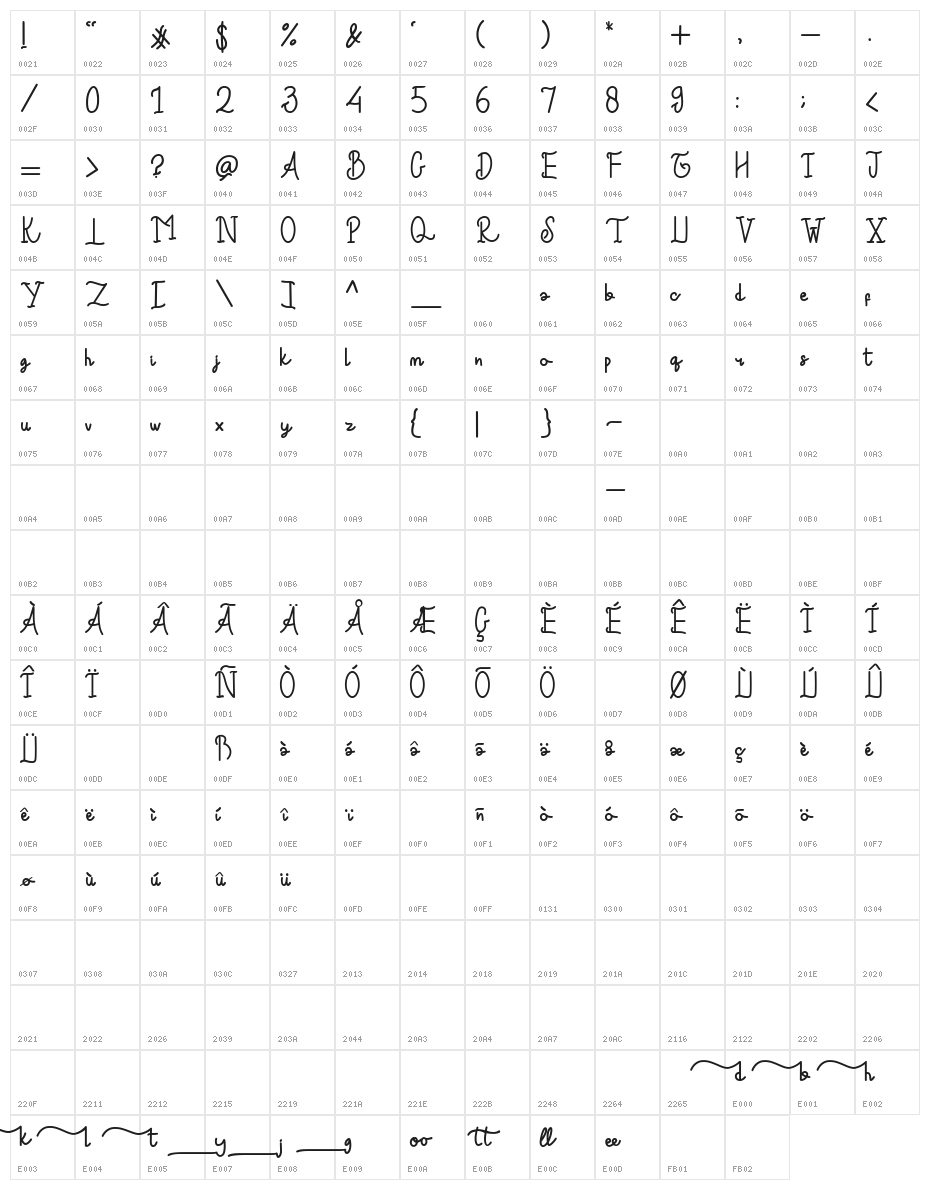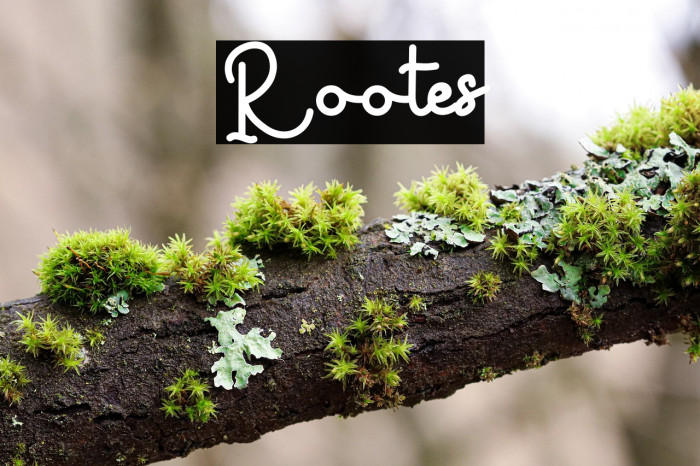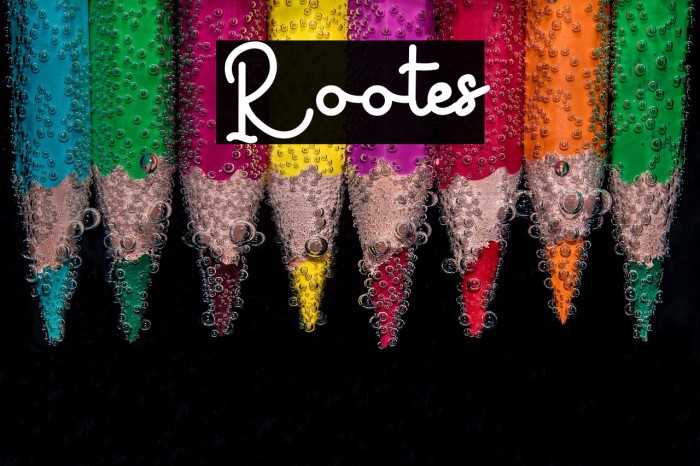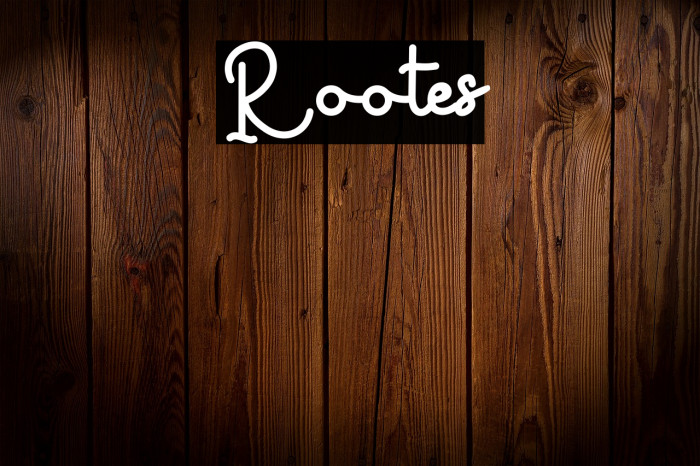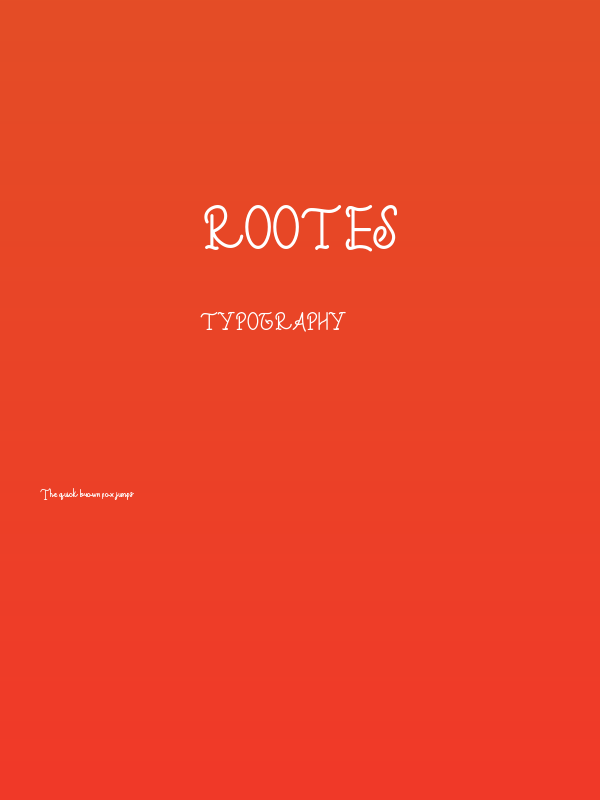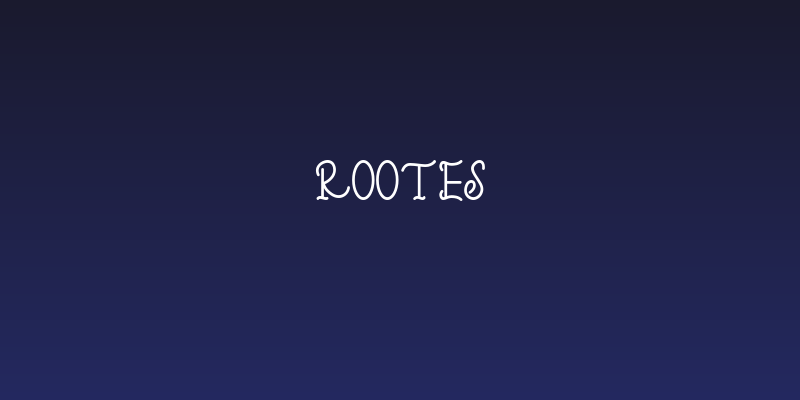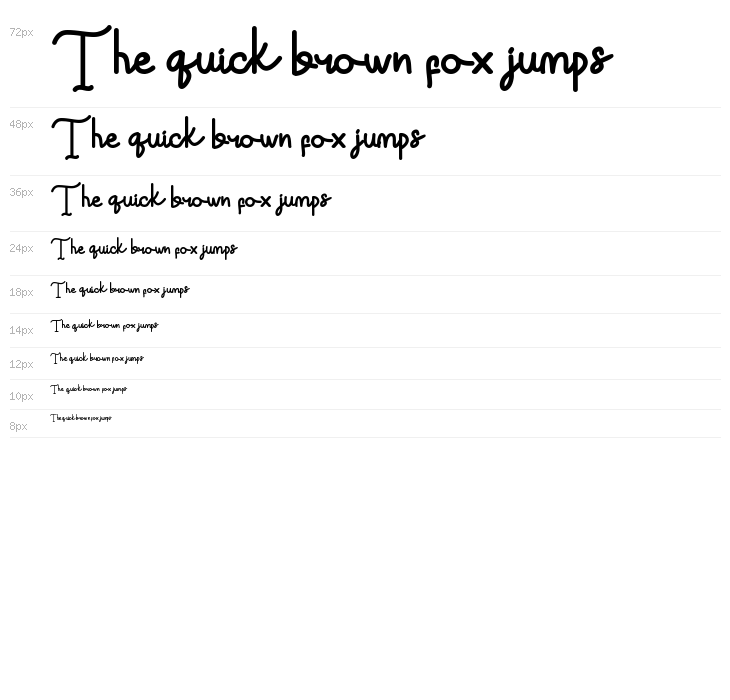
Rootes Font
Rootes Description
This font features a playful and whimsical design, characterized by its handwritten style with a slight slant, giving it a casual and informal appearance. The uppercase letters are bold and rounded, with unique flourishes that add a touch of creativity. The lowercase letters maintain a consistent flow, enhancing readability while retaining the font's distinctive charm. Numbers and special characters are designed to match the overall style, ensuring a cohesive look across all text elements. The font's playful nature makes it ideal for projects that require a friendly and approachable aesthetic.
| Overall Style | Playful |
| Use Case | Headlines, Logos, Invitations |
| Proposed Projects | Ideal for children's books, greeting cards, playful branding, and casual invitations. |